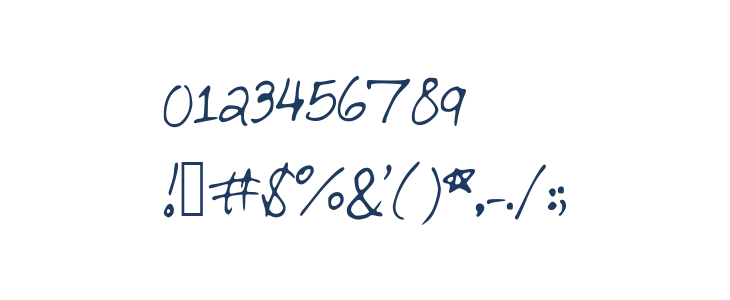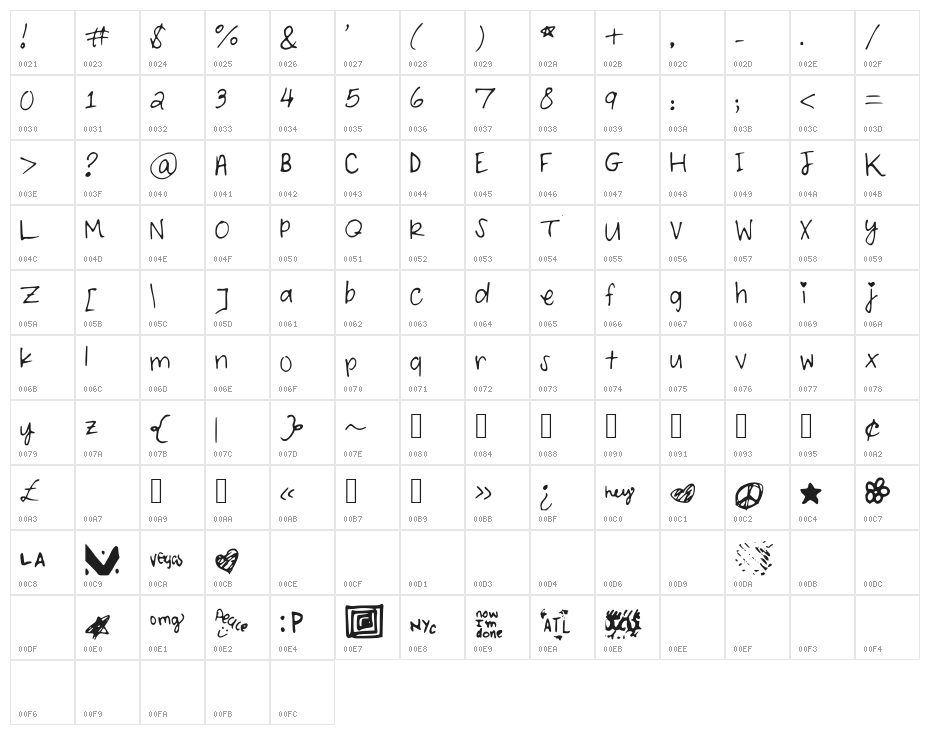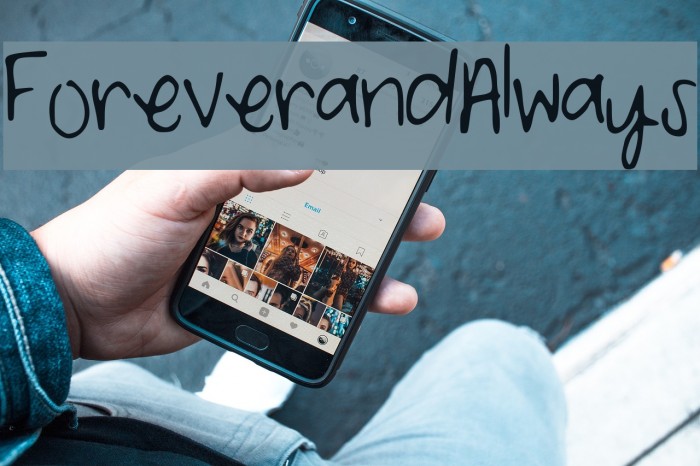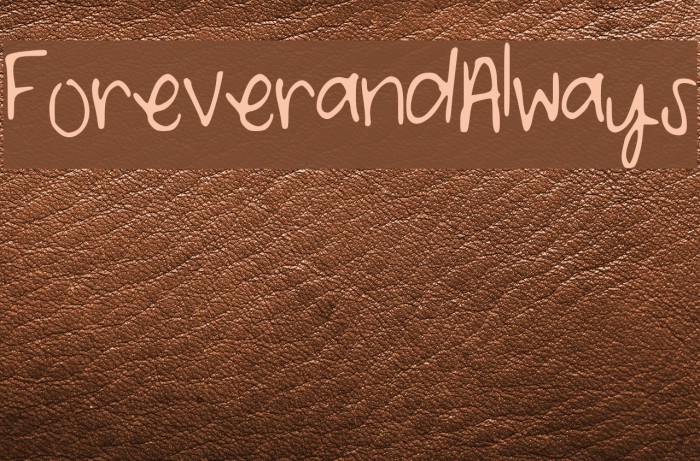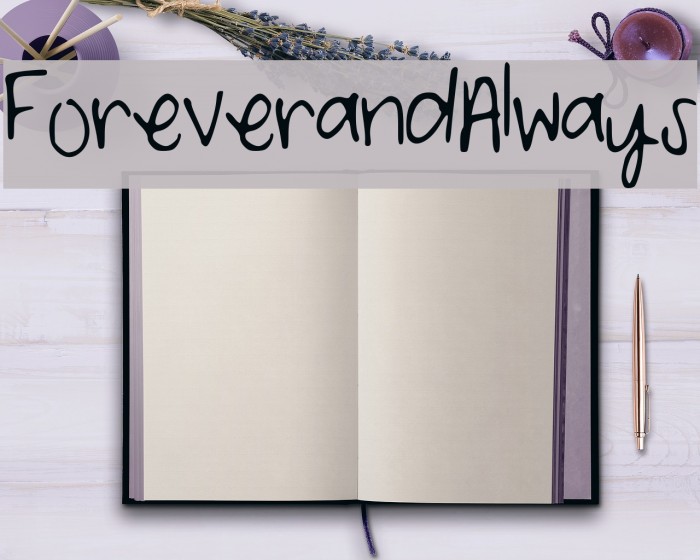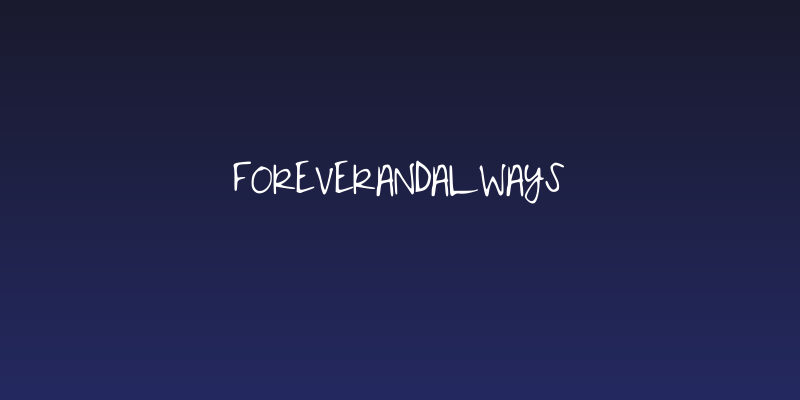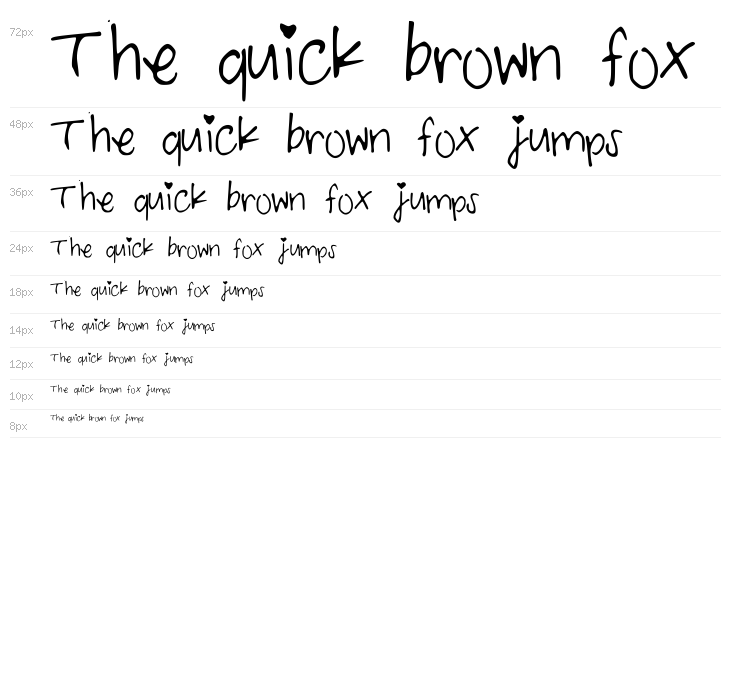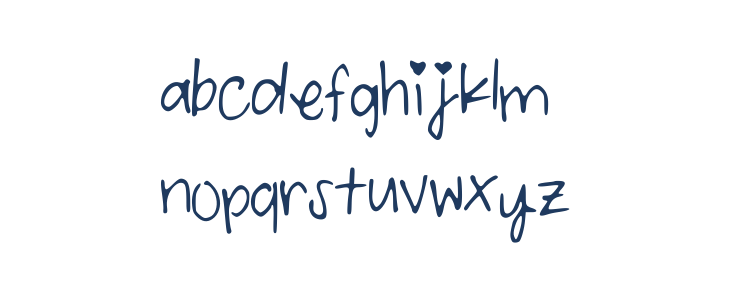
ForeverandAlways Font
ForeverandAlways Description
This playful and whimsical handwritten font exudes a casual and friendly vibe. The characters are slightly irregular, giving it an authentic, hand-drawn feel. The uppercase and lowercase letters are distinct, with a charming, informal style that is consistent throughout. The numbers and special characters maintain the same playful aesthetic, making it versatile for various creative projects. The font's unique personality is enhanced by its slightly uneven baseline and varying stroke widths, which add to its charm and approachability.
| Use Case | Greeting cards, Children's books, Personal branding |
| Proposed Projects | Ideal for greeting cards, children's books, personal branding, and creative social media graphics. |